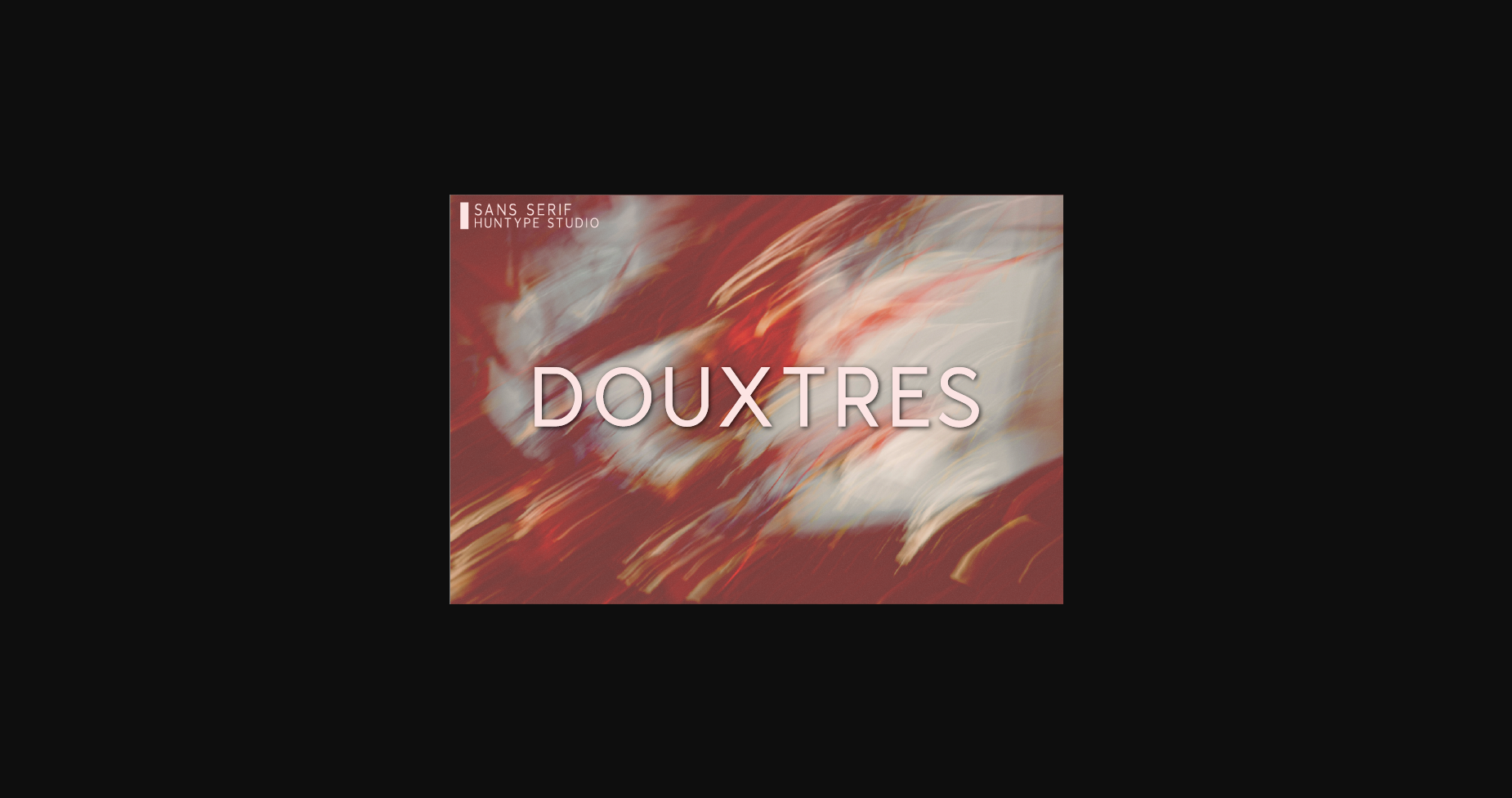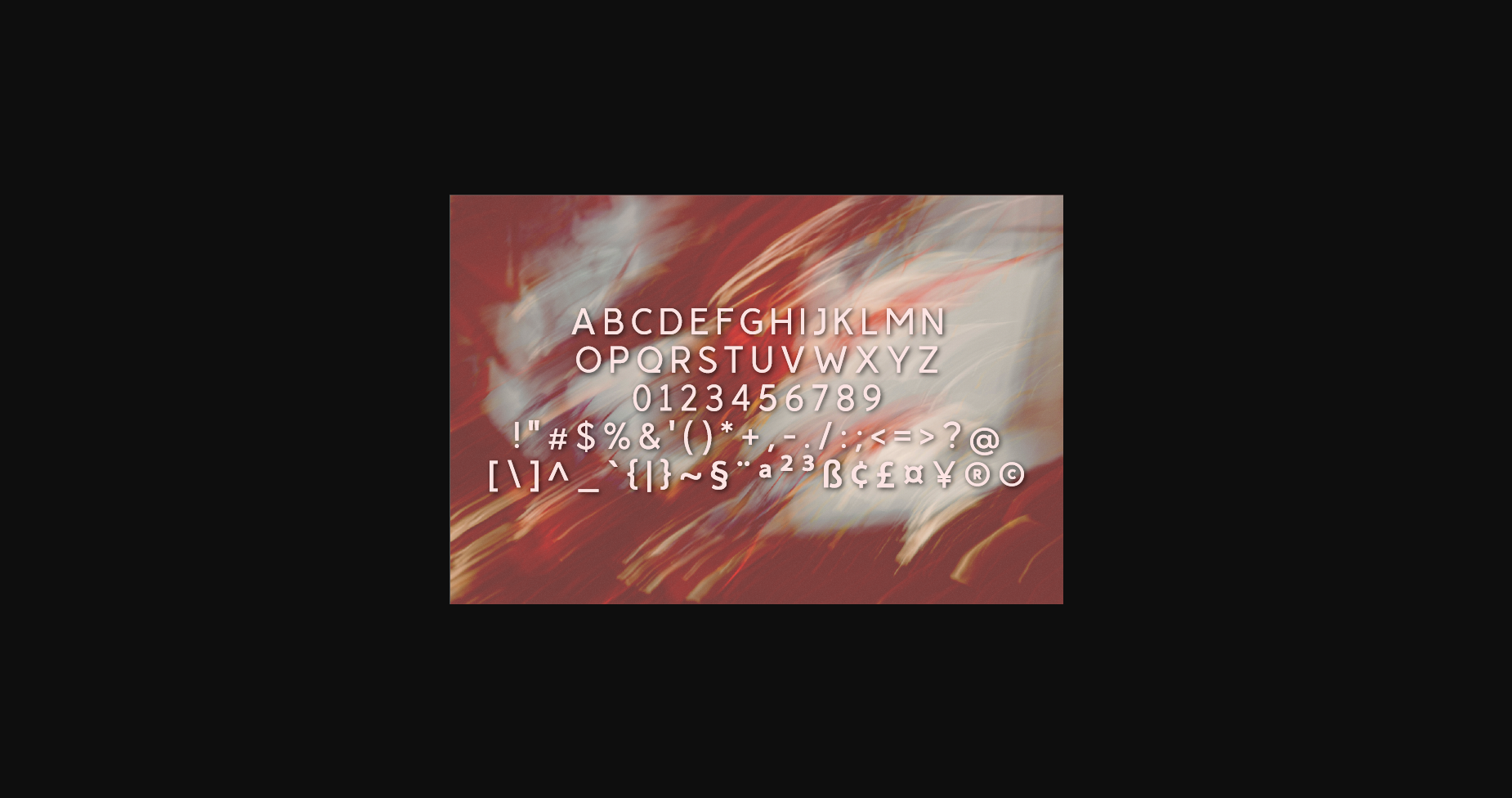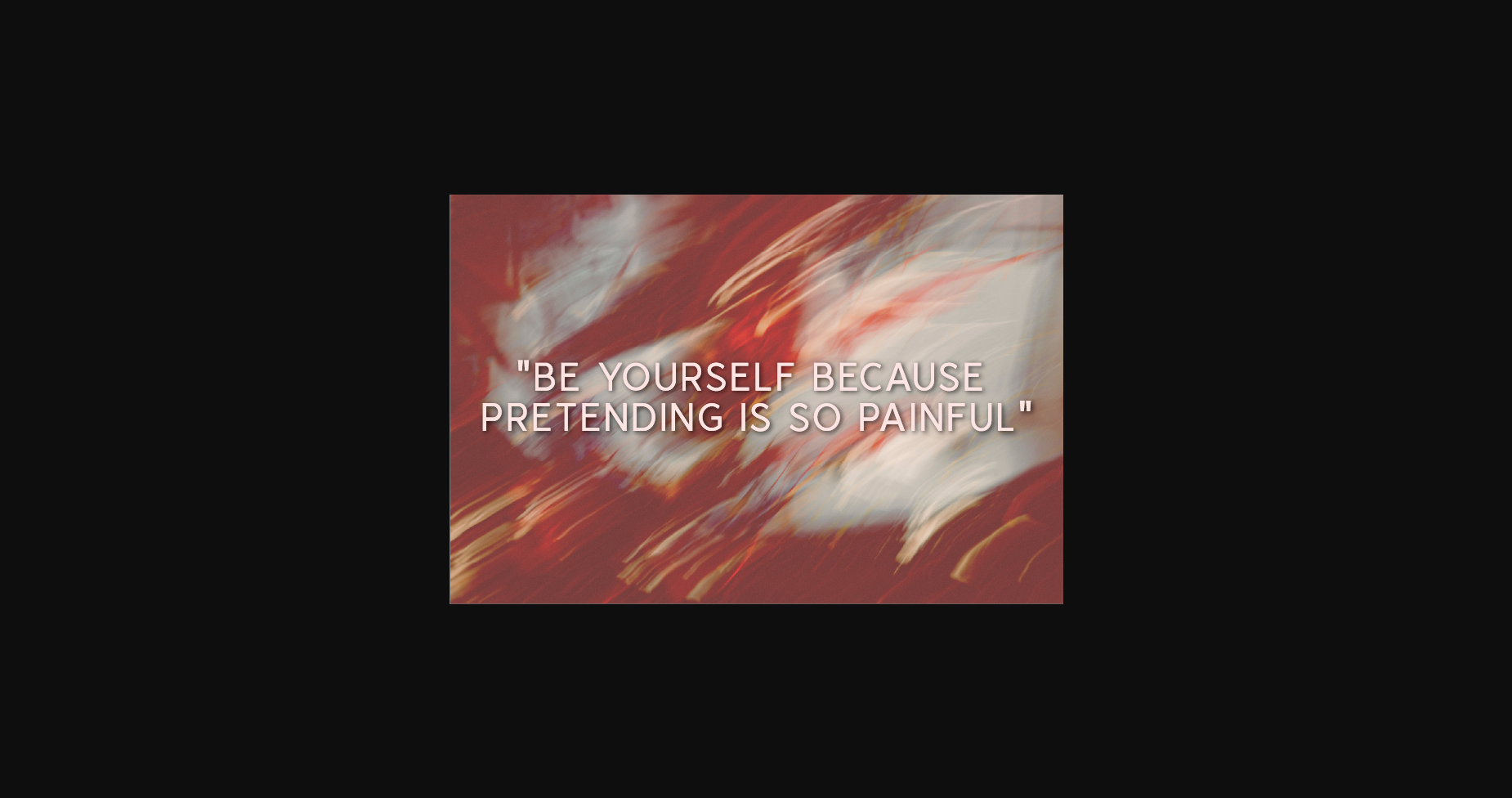
Douxtres Font
About Douxtres Font
Douxtres is a clean and neat sans serif font. It can easily be matched to an incredibly large set of projects, so add it to your creative ideas and notice how it makes them stand out!